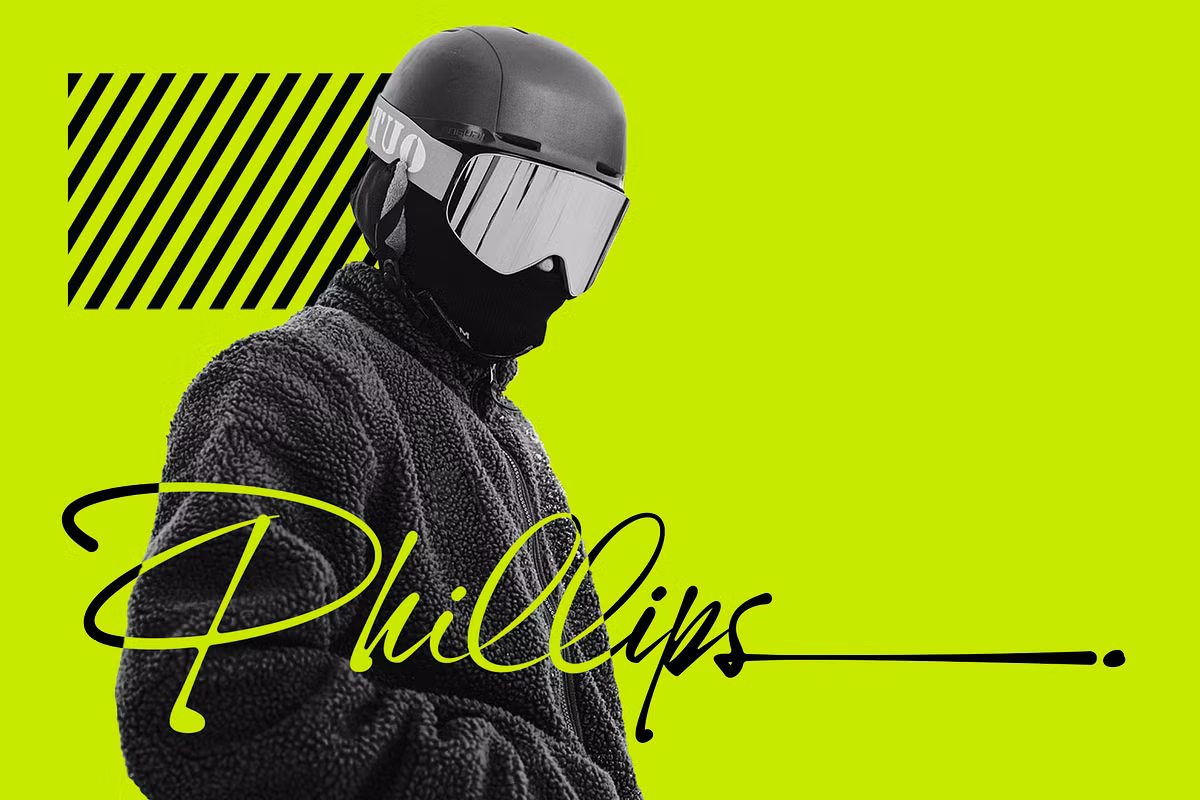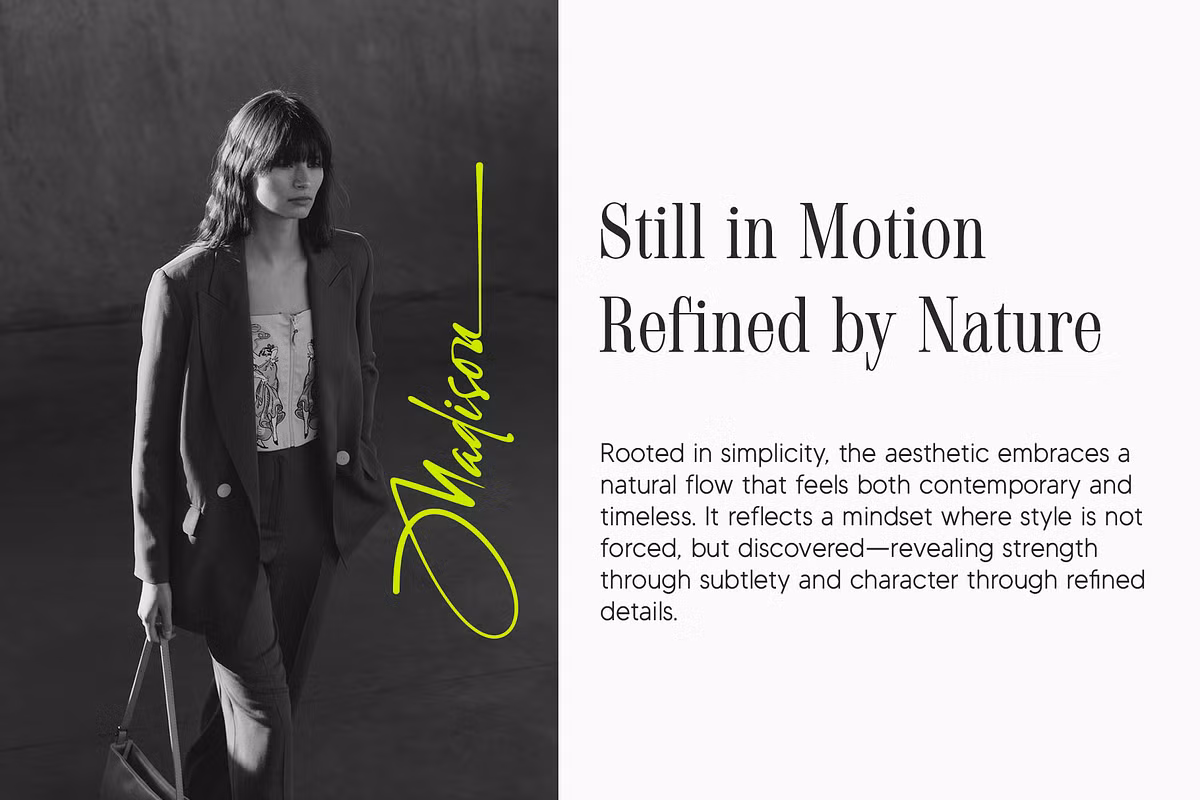
Nedalin: Modern Handwritten Signature Font for Elegant Design
Introducing Nedalin: A Signature-Style Font
Nedalin is a stunning signature-style font that embodies a modern handwritten aesthetic. With its bold, expressive, and natural character, this font elevates any design project with an organic and stylish feel. When you choose Nedalin, you’re not just selecting a font; you’re embracing a design element that captures the essence of authenticity and elegance.
Design Style of Nedalin
Nedalin’s design is all about smooth lines that flow together perfectly, kind of like a handwritten signature. This makes it great for projects where you want to add a personal touch. The font is bold, so your text really stands out, but it still looks like it was written by hand, which gives it a casual yet sophisticated feel. It’s perfect for things like logos or social media posts, because it balances being professional with being creative.
You can use it to make your work look more personal and unique, while still keeping it looking polished and put together. Whether you’re working on a big project or just a small post, Nedalin is a great choice because it’s versatile and easy to use. It’s also really good at conveying a sense of friendliness and approachability, which is important for building connections with your audience. Overall, Nedalin is a great font for anyone who wants to add a little personality to their work.
Expressive and Natural Characters
Nedalin stands out from other fonts because of its unique and expressive characters. Every letter is carefully designed to give off a warm and personal feel. The way the strokes flow together creates a one-of-a-kind look that feels real and captivating. This makes Nedalin a great choice for brands that want to build a strong, personal connection with the people they’re trying to reach.
Character Sets and Features
Nedalin comes equipped with a variety of features that enhance its versatility. One of the standout characteristics of this font is its inclusion of ligatures and swash alternatives. These features allow designers to create unique and visually appealing text compositions. For instance, by using swash variations, you can add flair to specific letters, making your design even more distinctive.
PUA Encoded and Multilingual Support
Nedalin is also set up in a way that makes it easy for designers to use, with all the special characters and symbols readily available. Plus, it works with many languages, so you can get your message across to people who speak different languages. This is really helpful for big brands or projects that need to reach a wide range of people. It’s great for communicating with people all over the world, no matter what language they speak.
Use Cases for Nedalin Font
Nedalin is really versatile and can be used in many different design applications. It’s useful in a lot of ways, here are some of the best examples:
- Logos and Branding: The elegant yet casual nature of Nedalin makes it perfect for logo design, helping brands to establish a strong and memorable identity.
- Packaging: When used in product packaging, Nedalin can convey a sense of quality and craftsmanship, appealing to consumers seeking authenticity.
- Headlines: Headlines really stand out when they’re in a bold font, which is why it’s a great pick for things like websites, magazines, and promotional stuff – it just grabs your attention right away.
- Social Media: In the digital age, creating engaging social media content is essential. Nedalin can help your posts stand out in crowded feeds.
- Special Designs: Designing special things like invitations, cards, or art prints can be really fun. When you use Nedalin, it adds a little something extra to make them look nice and show your personality.
Pairing Suggestions for Nedalin
To enhance the impact of your designs, consider pairing Nedalin with other fonts that complement its style. Here are some effective pairing suggestions:
- When you combine Nedalin with a classic serif font like Playfair Display, it can give your design a really elegant and refined feel. This is especially great for high-end brands that want to look sophisticated and polished.
- For a look that’s modern and sleek, try pairing Nedalin with a sans-serif font like Montserrat. This mix of styles can really make each font stand out in its own way, creating a nice contrast that’s visually appealing.
- If you want to maintain a handwritten feel, consider pairing Nedalin with another script font like Pacifico. This combination can create a harmonious and cohesive design.
You can use Nedalin for all sorts of projects, like logos, packaging, or social media posts, and it will always add a touch of sophistication. The characters are really expressive, and it’s easy to use, so it’s perfect for both experienced designers and those who are just starting out. Whether you’re a pro or a beginner, Nedalin is a great choice because it’s so versatile and easy to work with. It’s a great way to make your designs look amazing and catch people’s attention.